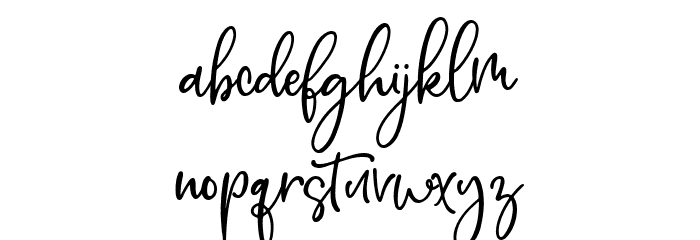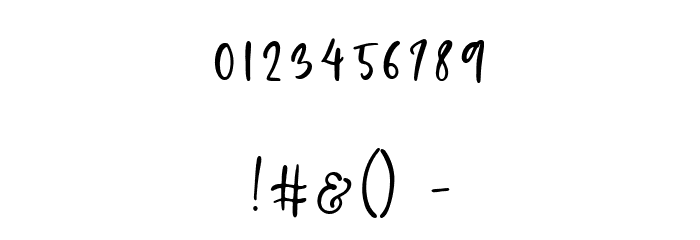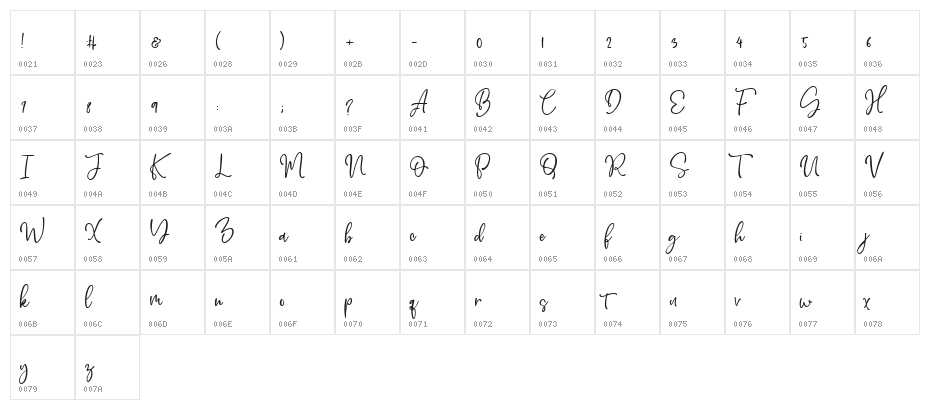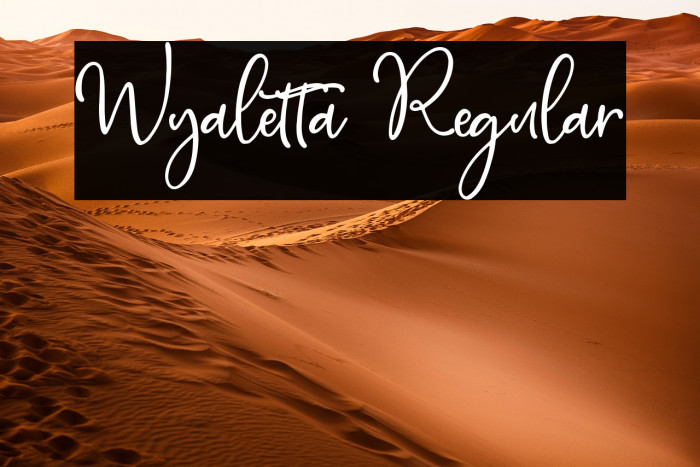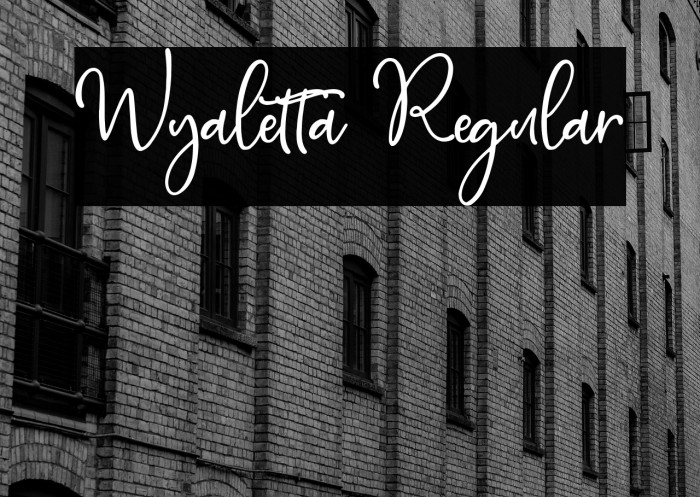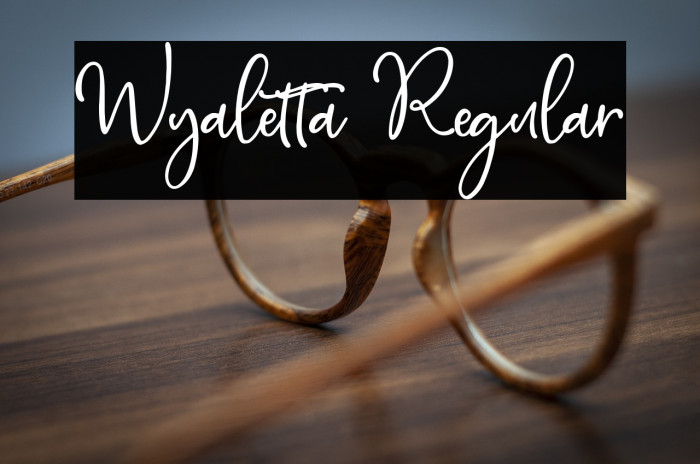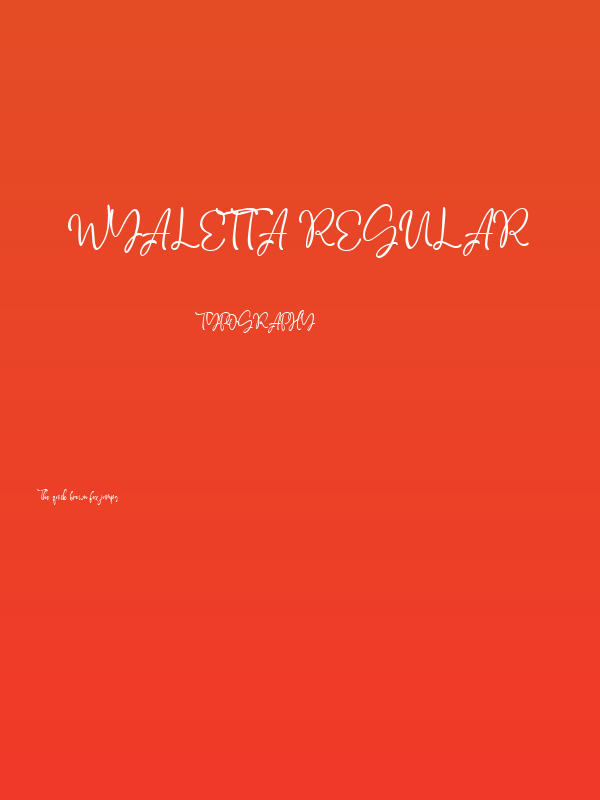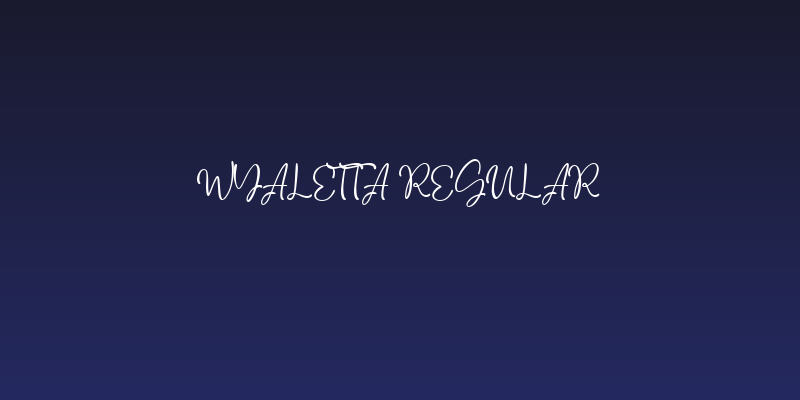
Wyaletta Regular Font
This font features an elegant, flowing script style that mimics the fluidity of natural handwriting. The characters are connected, creating a seamless and continuous look that is both sophisticated and approachable. The uppercase letters are slightly larger and more ornate, while the lowercase letters maintain a consistent flow. The numerals and special characters are designed to match the overall aesthetic, ensuring a cohesive appearance across all text. This font's design is perfect for adding a personal touch to any project, with its graceful curves and balanced proportions.
A flowing, elegant script font with a natural handwriting style.
- Proposed Projects: Ideal for wedding invitations, greeting cards, personal branding, and elegant packaging designs.
- Category: Script
- Overall Style: Elegant, Handwritten
- Use Case: Logos, Invitations, Personal Branding